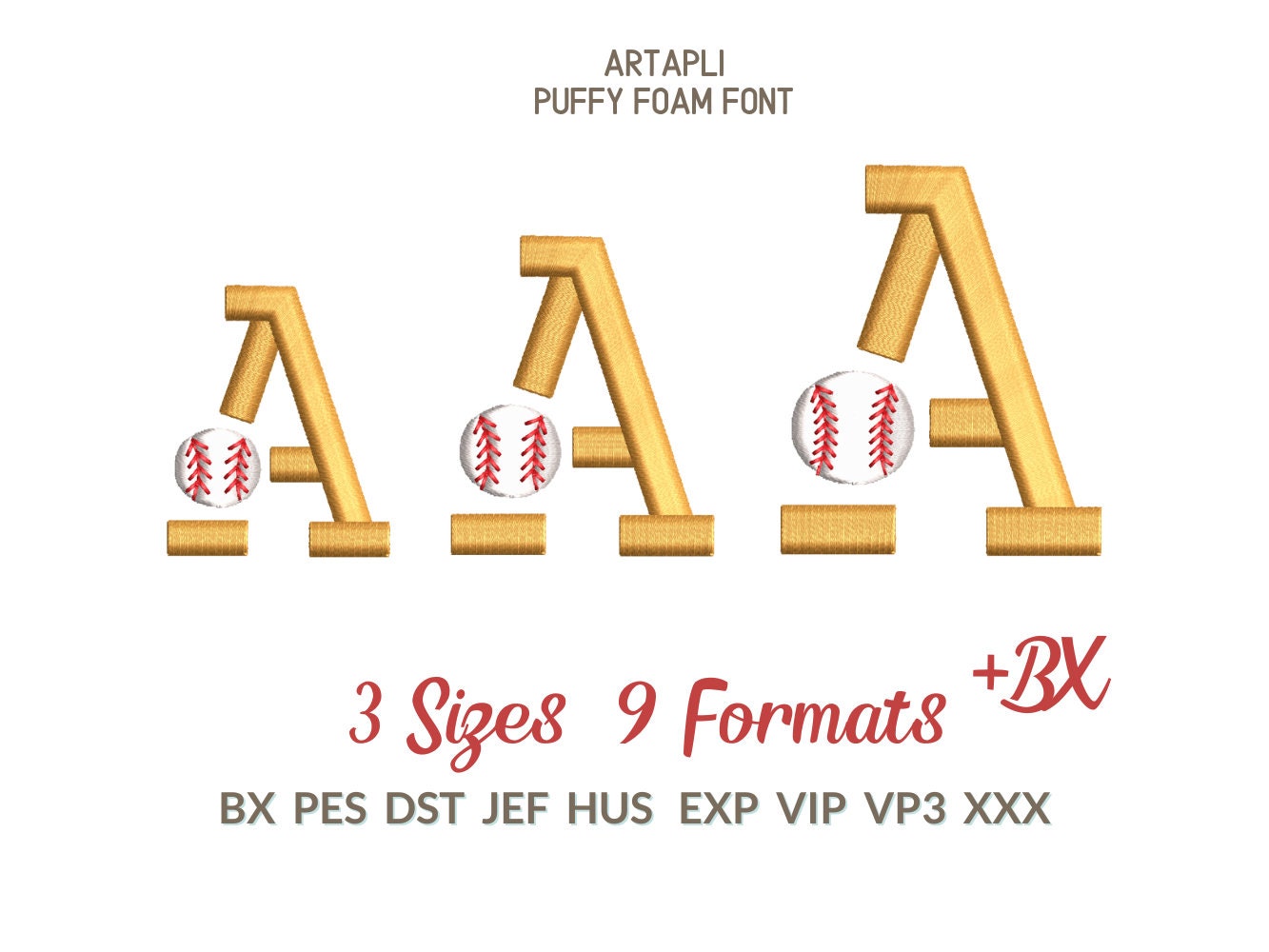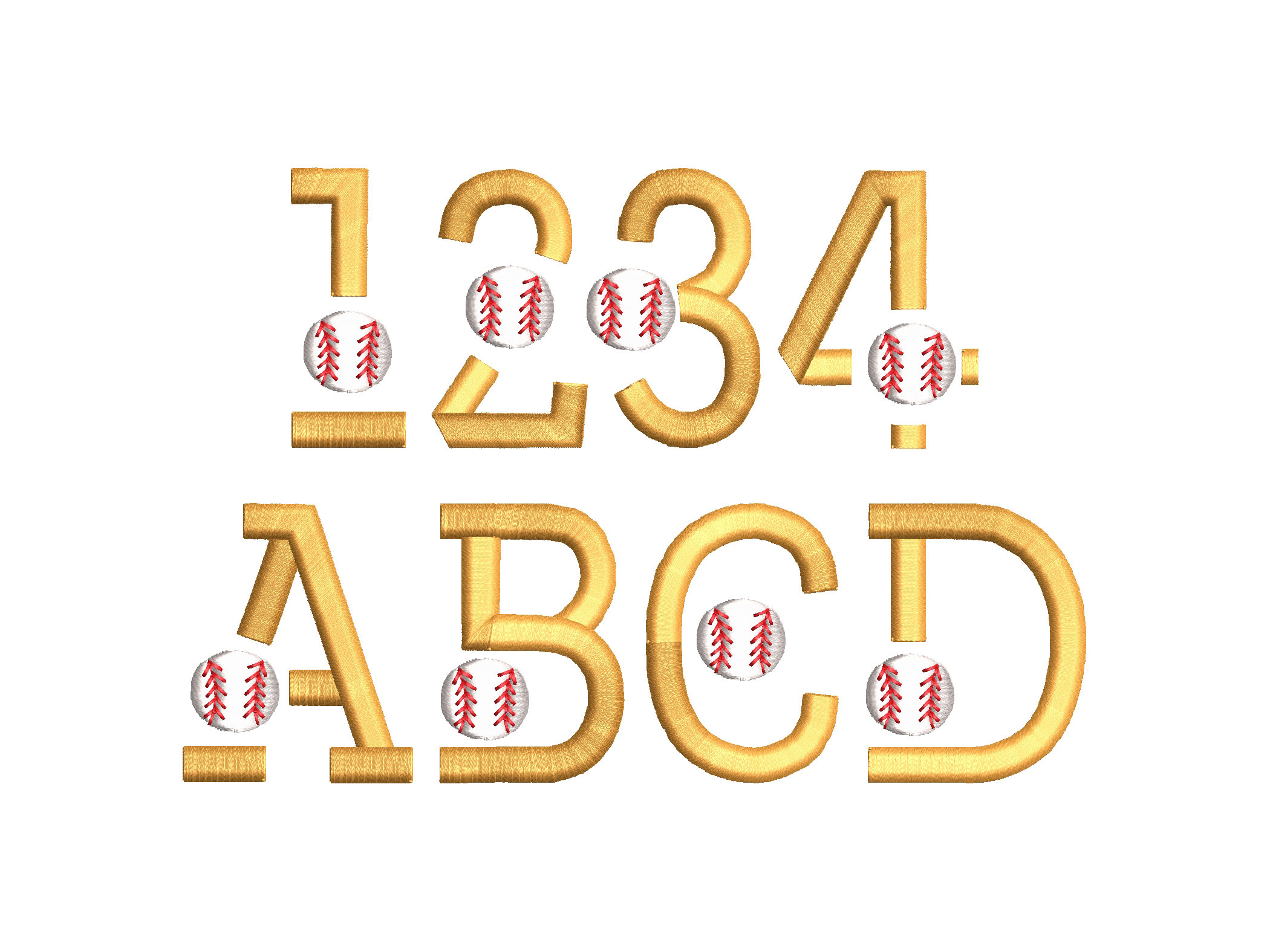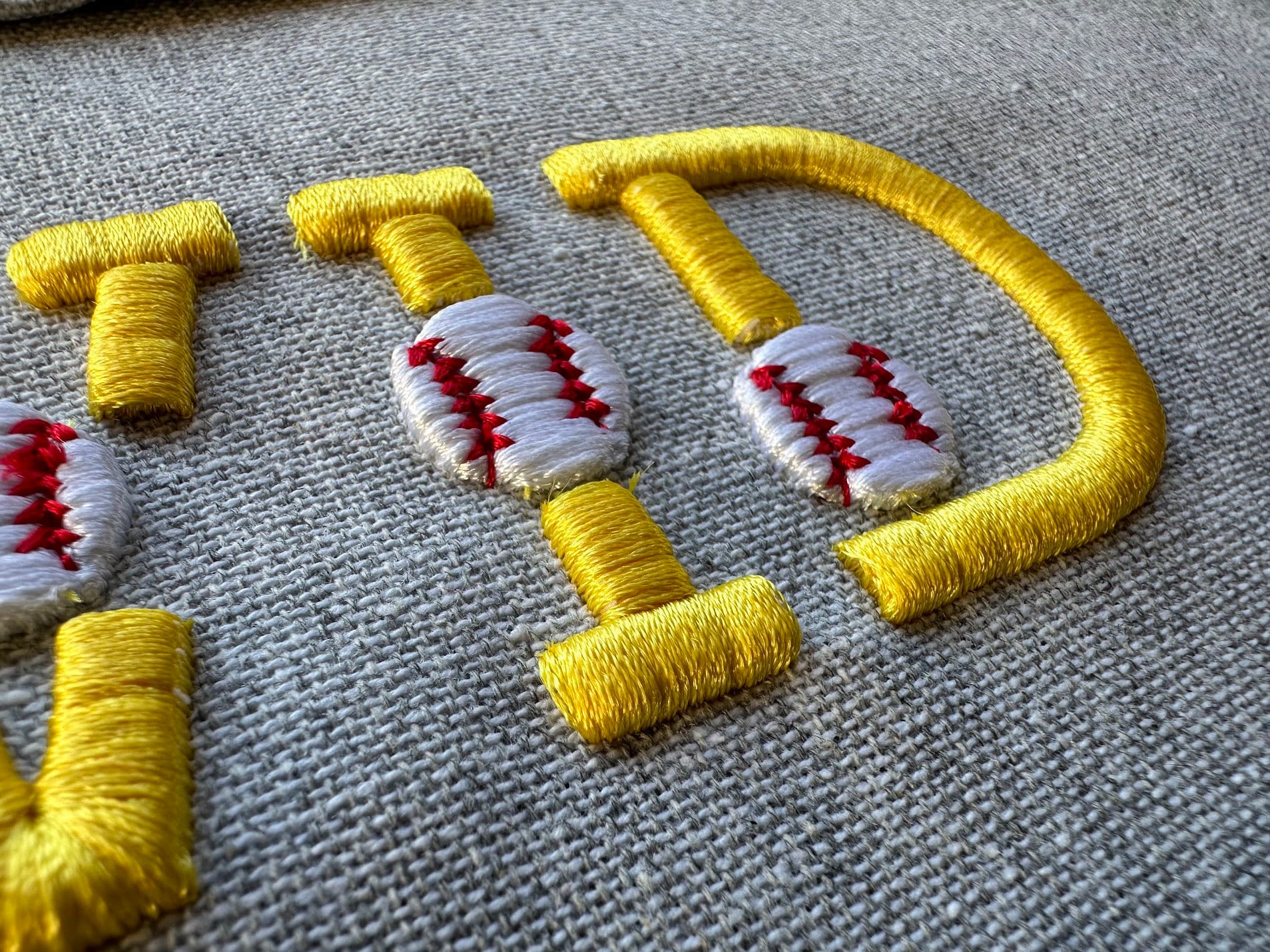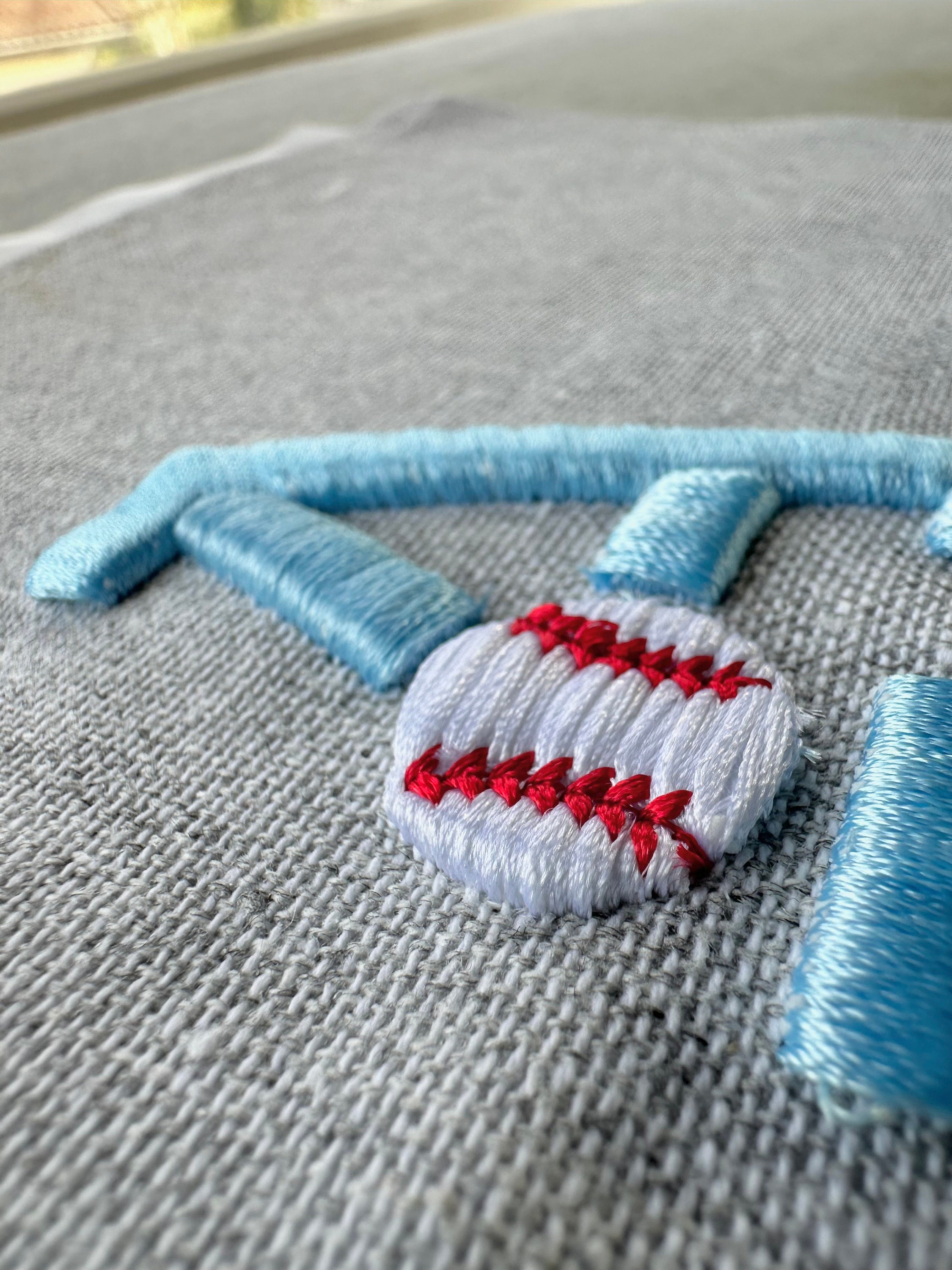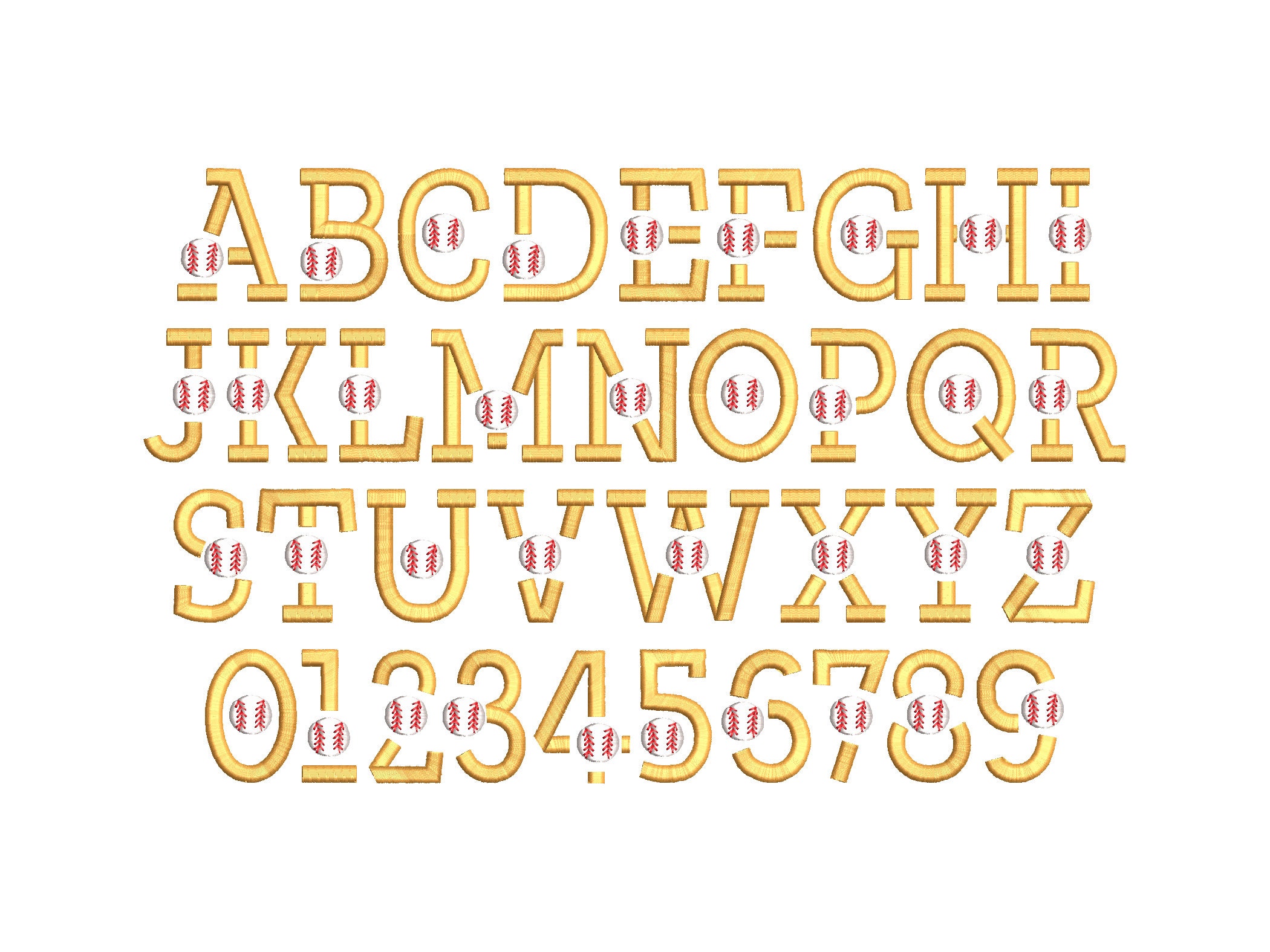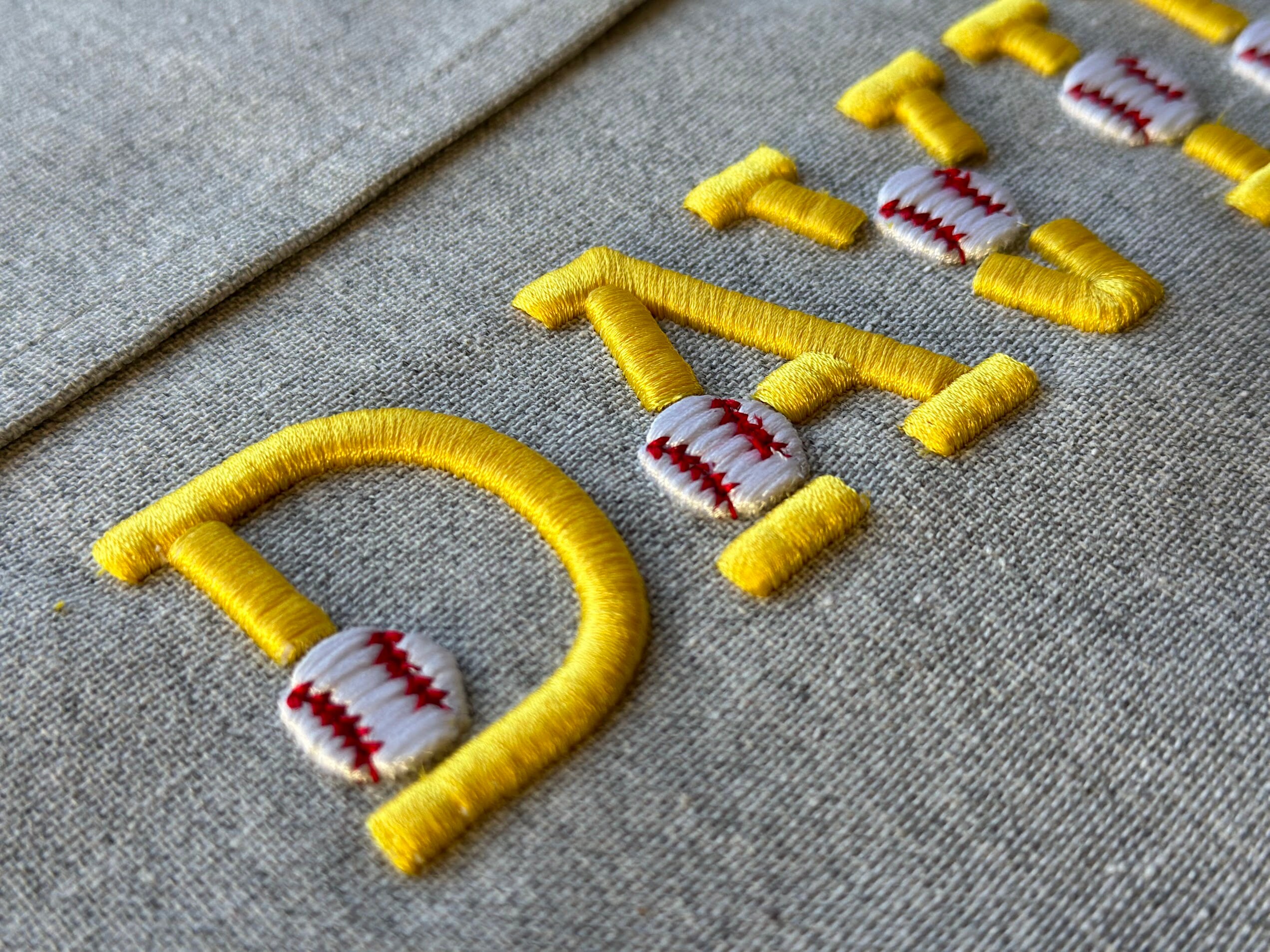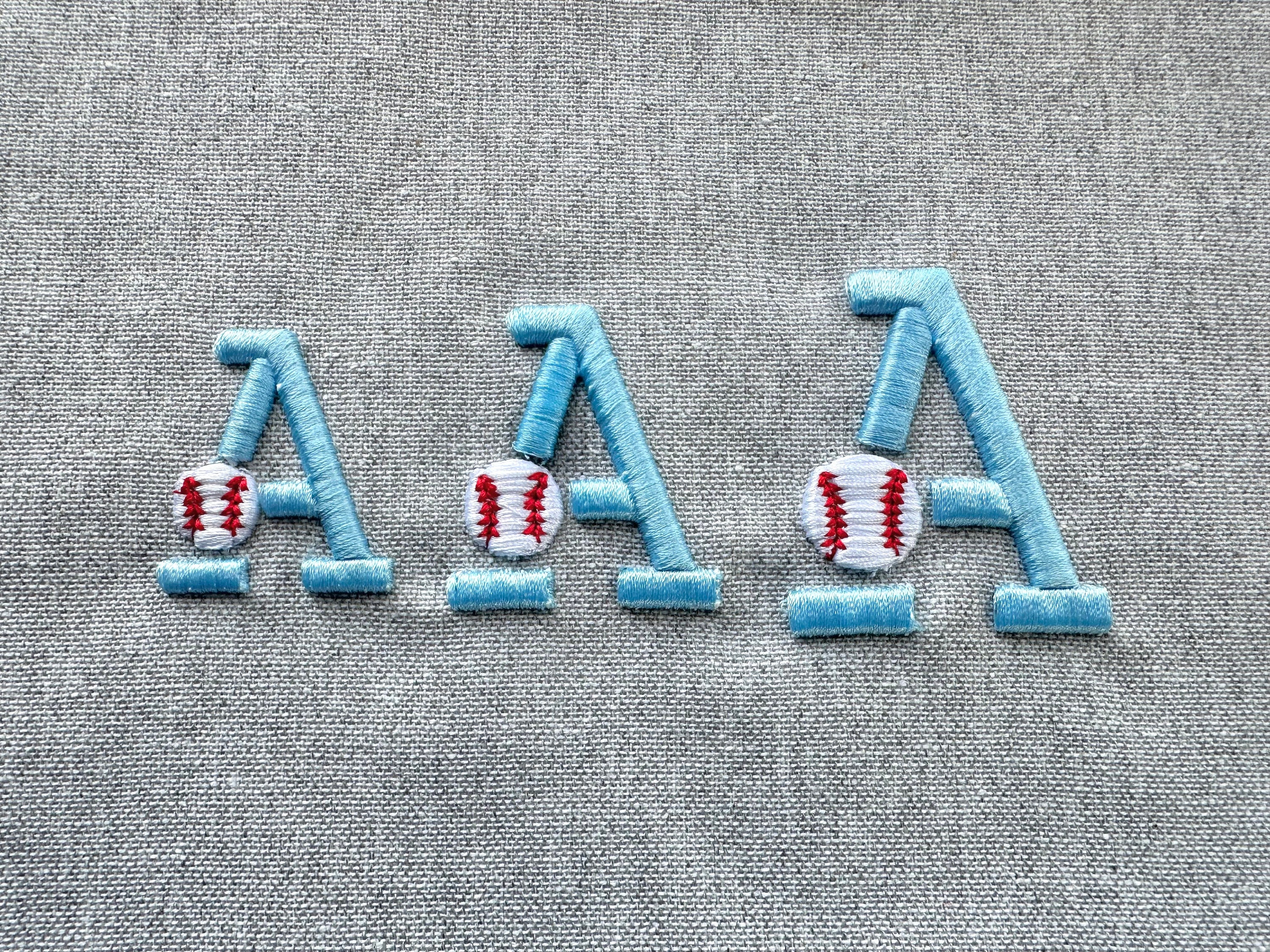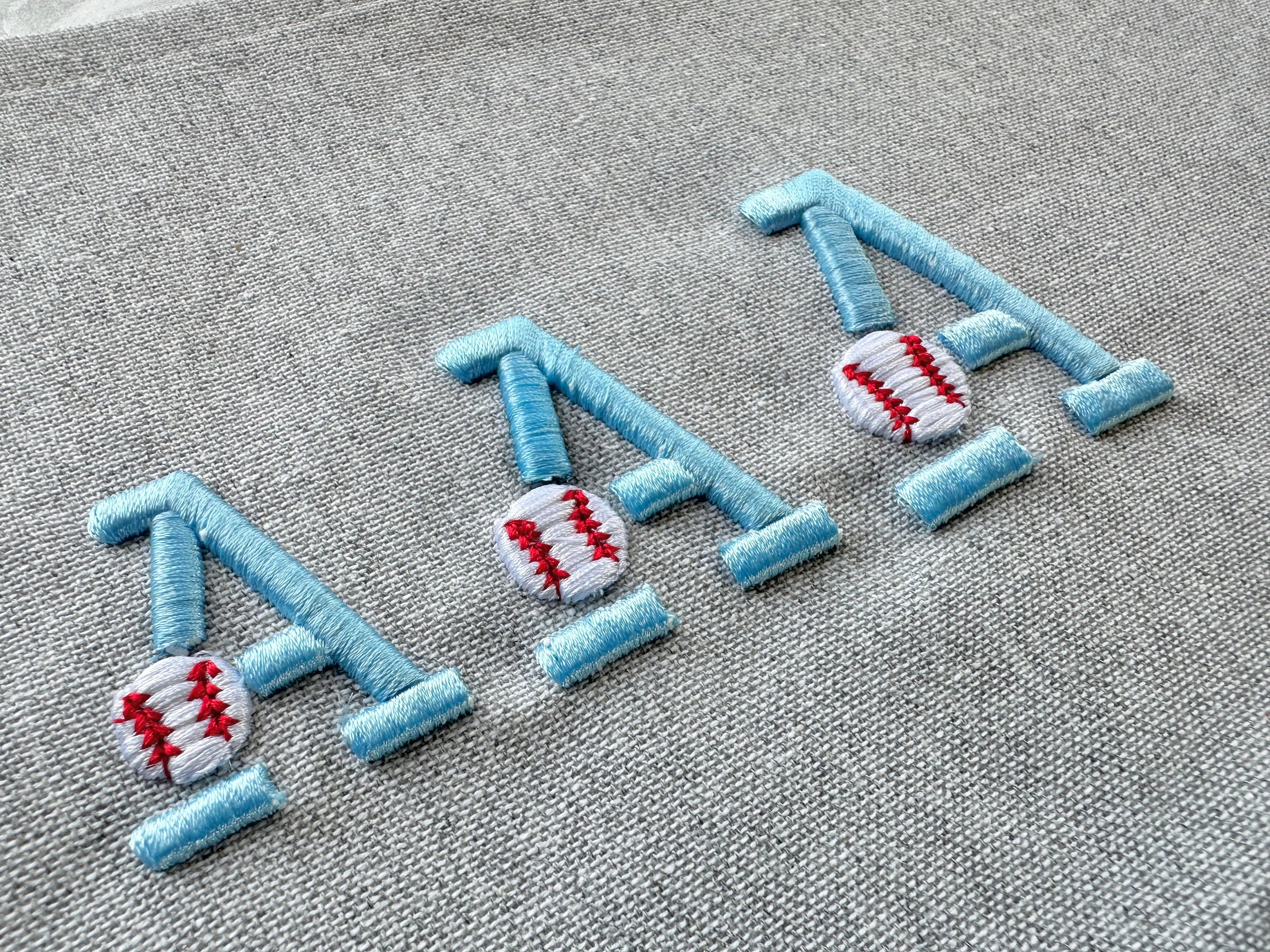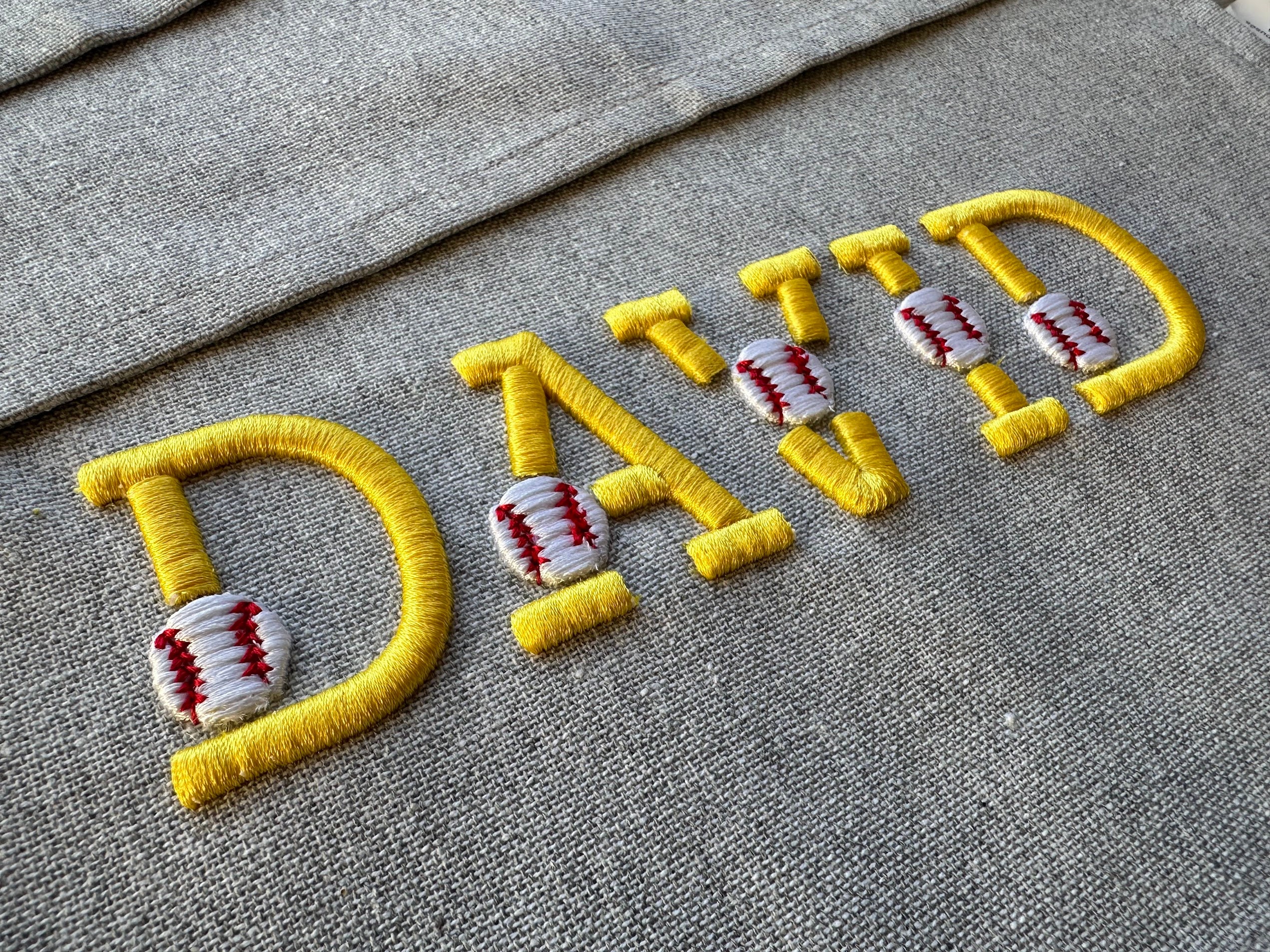
Baseball Puff Embroidery Font puffy foam machine embroidery designs 3D raised alphabet monogram Sport Block Font sizes 1.3, 1.7, 2 inch, BX
Whole alphabet A-Z uppercase and numbers 0-9.